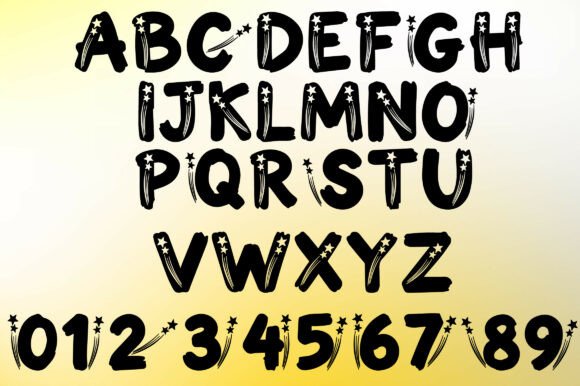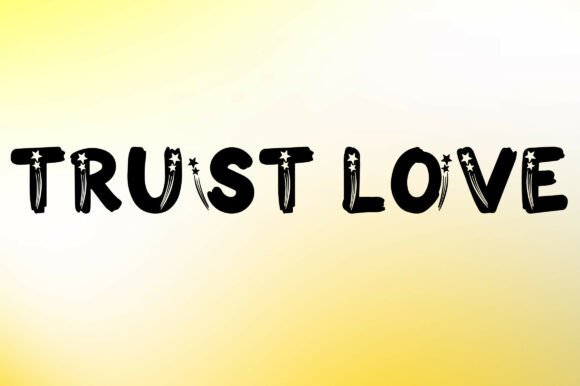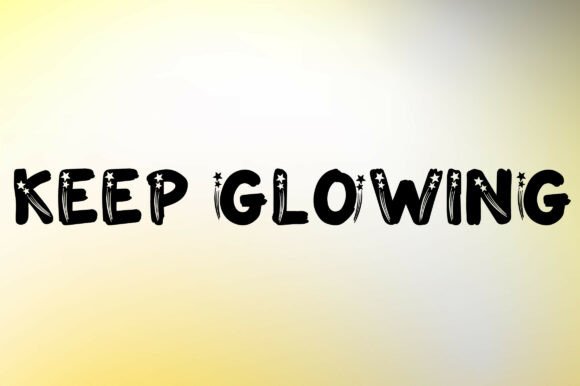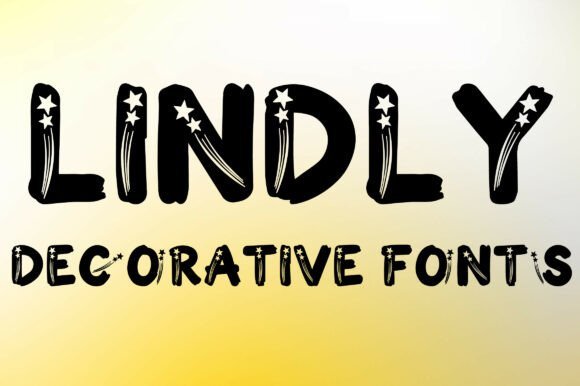
Introduction to Lindly Font
LINDLY Decorative Stars Style Fonts is a wonderful and imaginative typeface inspired by sparkling stars and magical celestial beauty.
Its playful decorative style adds charm, creativity, and a dreamy touch to any project, making it perfect for logos, branding, posters, invitations, packaging, social media graphics, kids’ designs, and more Featuring uppercase English letters A–Z and numbers 0–9, this font brings a fun and stylish touch while giving you endless opportunities to express your creativity with sparkle and imagination.